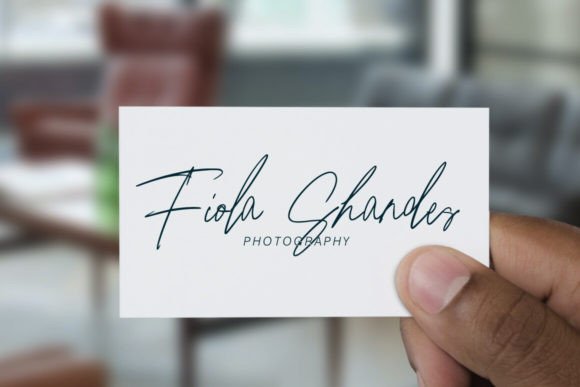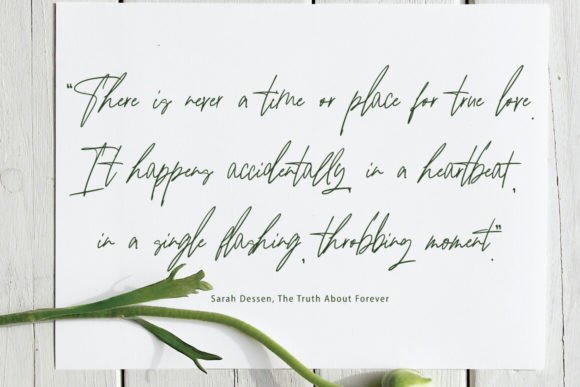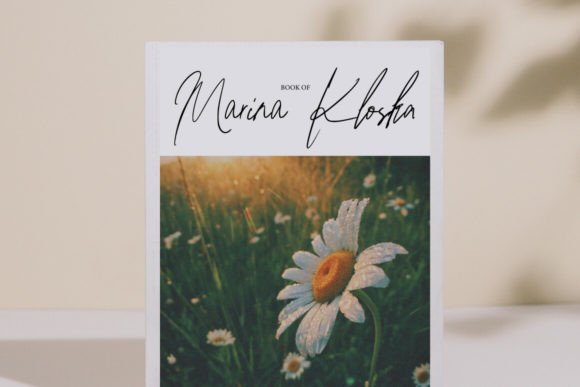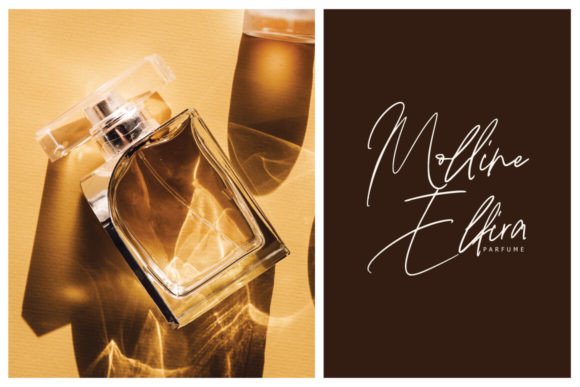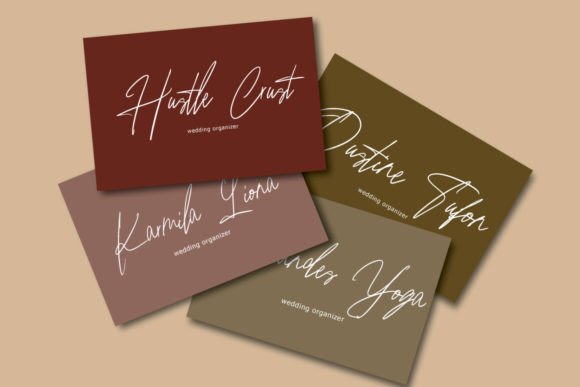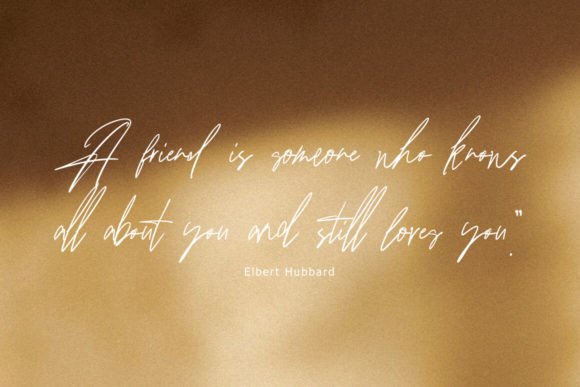
Introduction to Madiena Font
Madiena Signature with a handmade Signature style, decorative characters, and a dancing baseline.
So beautiful on invitations like greeting cards, branding materials, business cards, quotes, posters, and more Madiena Signature comes with 200+ glyphs.
Key Features of Madiena Font